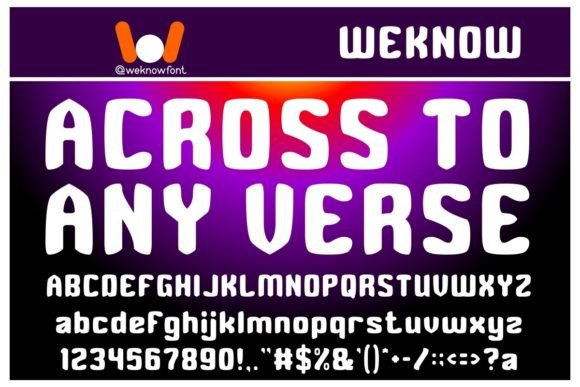
The Ultimate Display Font: Across to Any Verse
Have you ever been stuck on a design project, searching for that perfect font to bring your vision to life? I recall a particularly frustrating experience while working on a branding project for a music festival. My client wanted a bold, eye-catching font that would stand out on posters, merchandise, and social media. After scouring font libraries and testing countless options, I stumbled upon Across to Any Verse – a fancy display font that instantly elevated my design.
• ✨ **Versatility**: Across to Any Verse is suitable for a wide range of design projects, from logos, logotypes, and headlines to corporate identities, brand identities, apparel, posters, music, movies, games, magazines, books, comics, cartoons, YouTube, Instagram, and websites.
• ✅ **Unique Style**: This font boasts a distinctive, stylish aesthetic that’s sure to grab attention.
• 💡 **Creative Freedom**: With its extensive range of OpenType features, glyphs, and stylistic alternates, Across to Any Verse offers endless possibilities for customization and experimentation.
While Across to Any Verse is an exceptional font, there are a few minor considerations to keep in mind:
• 🤔 **Legibility at Small Sizes**: As with many display fonts, Across to Any Verse may not be the best choice for body text or small font sizes. It’s ideal for headlines, titles, and emphasis.
• ⚠️ **Limited Suitability for Formal Designs**: Due to its bold, attention-grabbing nature, Across to Any Verse might not be suitable for formal or traditional designs, such as business reports, academic papers, or corporate communications.
Across to Any Verse was designed with the goal of creating a bold, eye-catching font that would inspire creativity and self-expression. The designer’s vision was to craft a font that would be perfect for music festivals, movie posters, and social media graphics – anywhere you want to make a statement.
What is Across to Any Verse best suited for? Across to Any Verse is ideal for display purposes, such as logos, headlines, posters, and social media graphics.
Is Across to Any Verse available in different weights or styles? Yes, Across to Any Verse comes with a range of OpenType features, glyphs, and stylistic alternates, allowing for extensive customization.